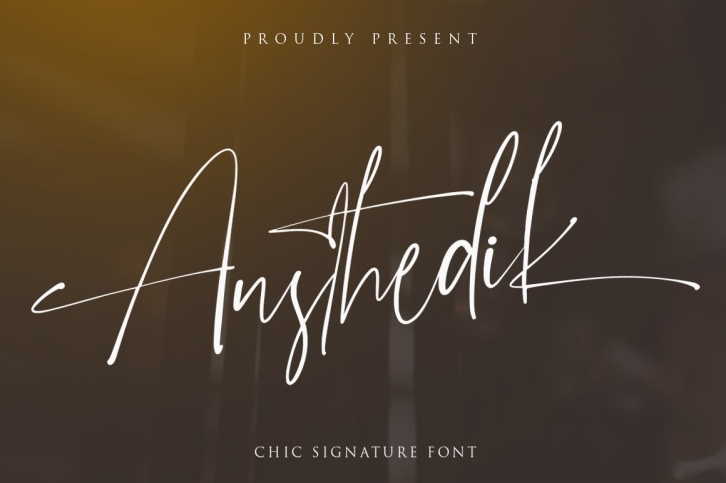
Austhedik Elegant is a beautiful font that was designed by Vultype Co. It's a great choice for designers and creatives who need such a font. It was released on June 14, 2022 and the file size is 8.45 MB. Austhedik Elegant may give a more youthful, expressive and casual look to your project. It is a very beautiful, refined, elegant, and high-quality font.